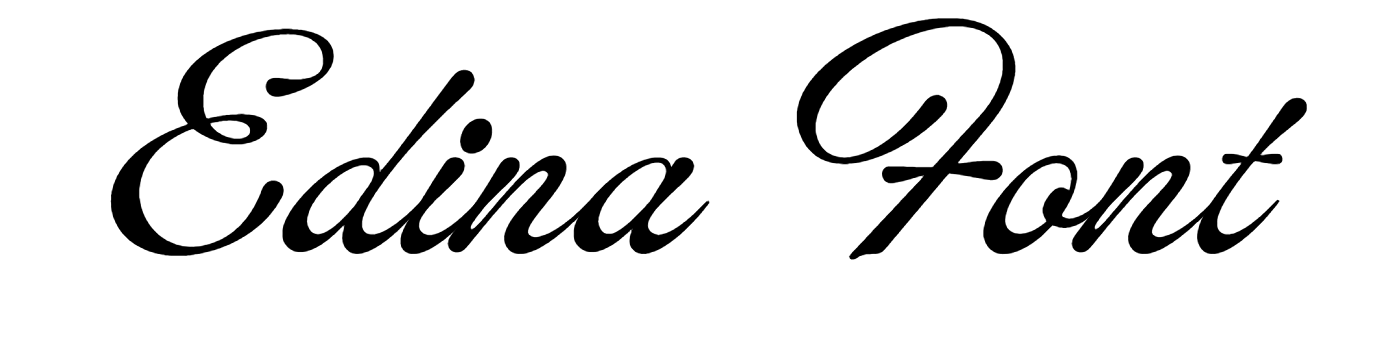
Edina
Edina is a calligraphy font made by Emyself Design (2021). The letters have the smooth movement of real pen lettering, which is why even a single name looks special in it. It's a free download, and you can try it with your own text in the preview above first.
- OpenType features: Ligatures (including optional ones), contextual alternates, 4 stylistic sets and fractions
What You Can Type With Edina
You get every letter from A to Z in both cases and all the numbers from 0 to 9, which means Edina can handle full sentences, dates and prices. Everyday marks like &, !, ? and @ are there too. Thanks to its accented letters, it also works for Spanish, French, German, Portuguese and Italian, not just English.
Where Edina Works Best
Designers usually reach for fonts like Edina when they're making wedding invitations, certificates and elegant quotes. Its lowercase letters are small compared to the capitals, so set it a size or two bigger than usual. Script fonts read best in short bursts, so keep it to names, titles and one-line quotes. Skip all caps: script capitals are drawn to start a word, not to fill one.